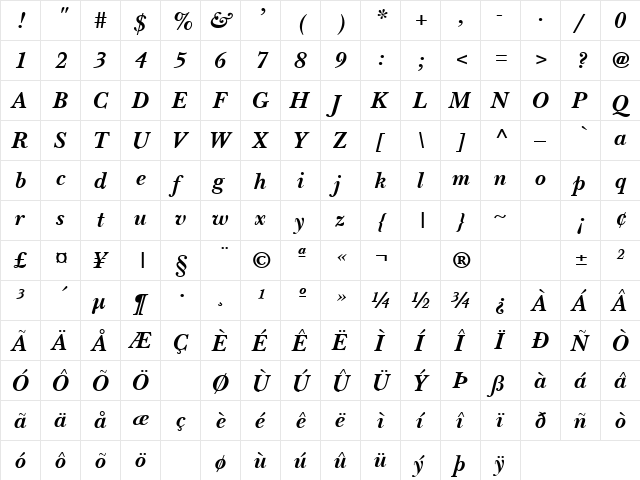
Revival 5 Bold Italic
Design Context for Revival 5 Typeface
Revival 5 is a composed and adaptable typeface that performs quietly and consistently across a wide range of design contexts. The dynamic lean of this cut emphasises speed and emphasis in any layout. The heavy weight commands attention and anchors typographic hierarchies.
Pro Tip: Try Revival 5 for annotation and caption copy alongside an upright companion — the contrast in angle creates a dynamic but ordered typographic system.